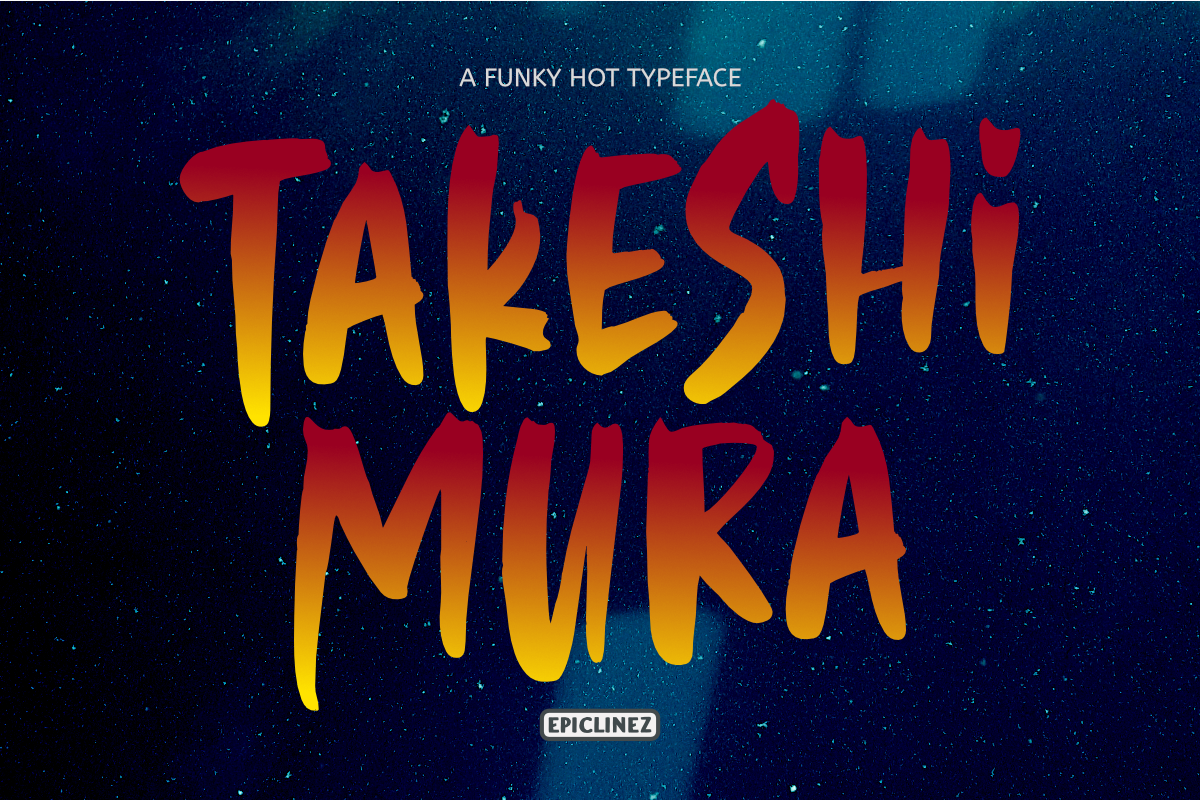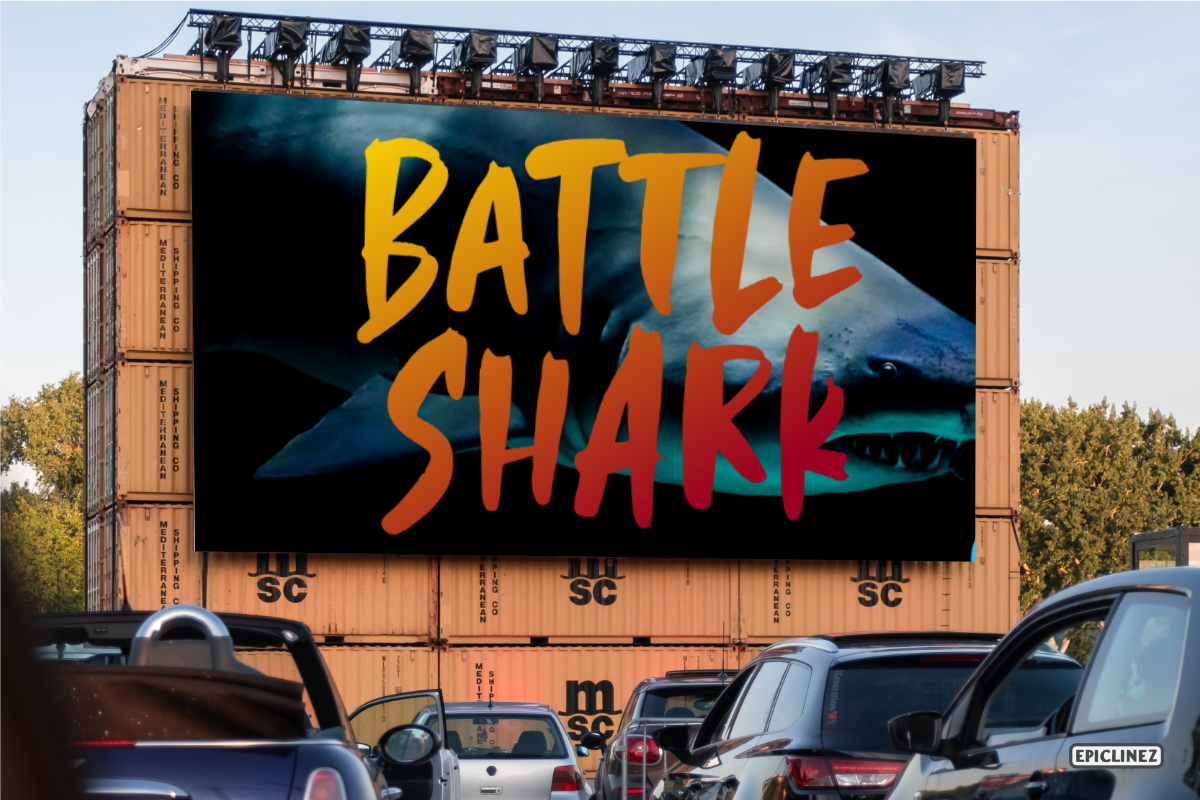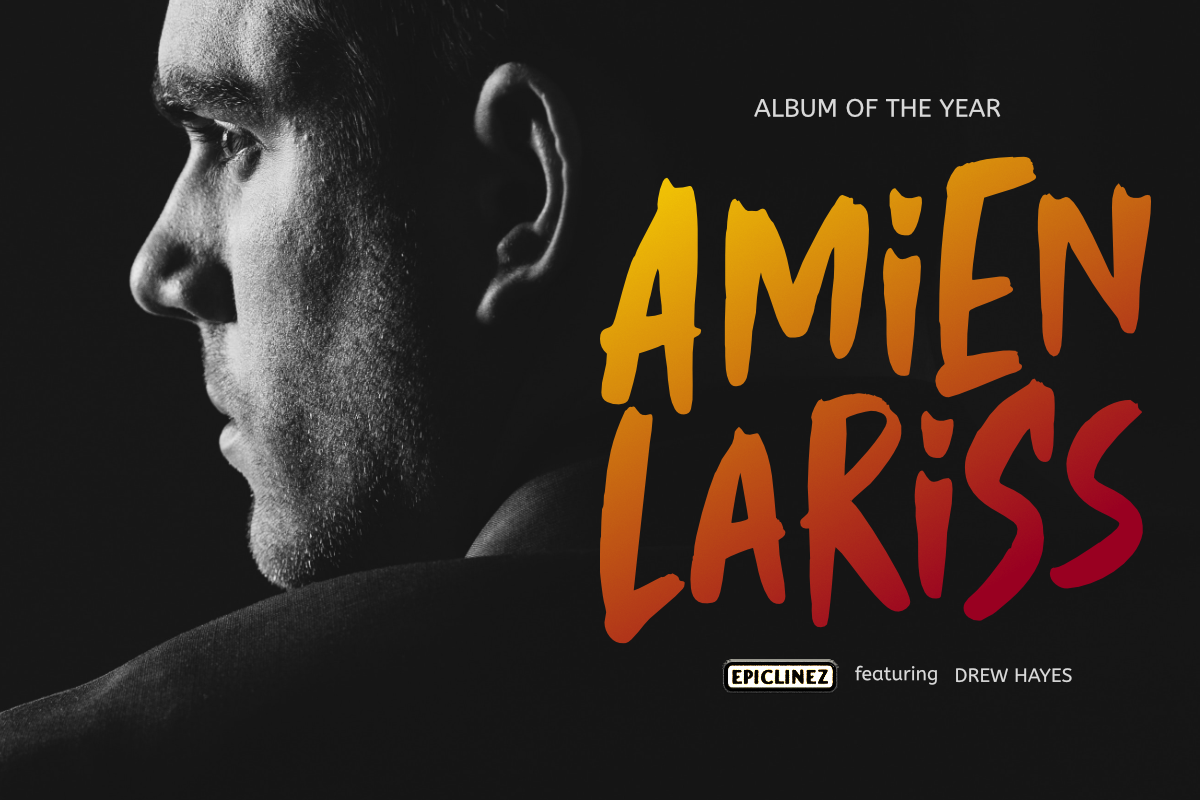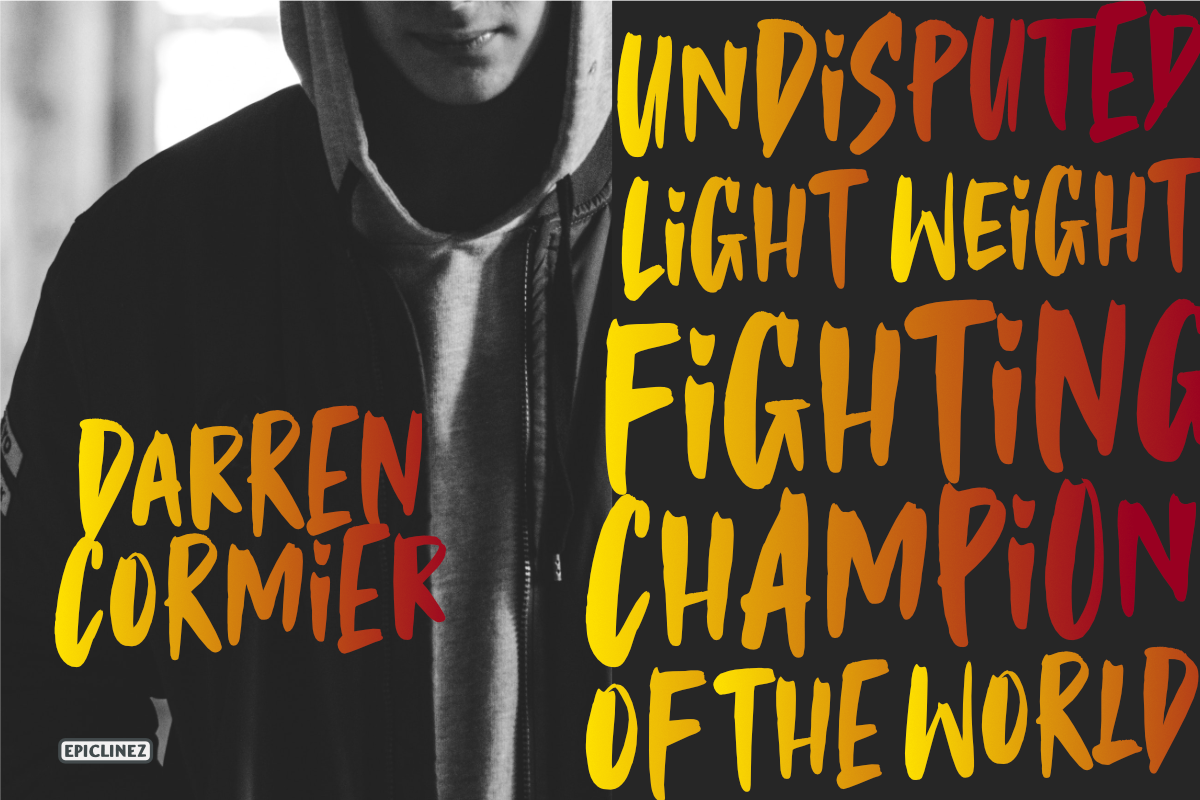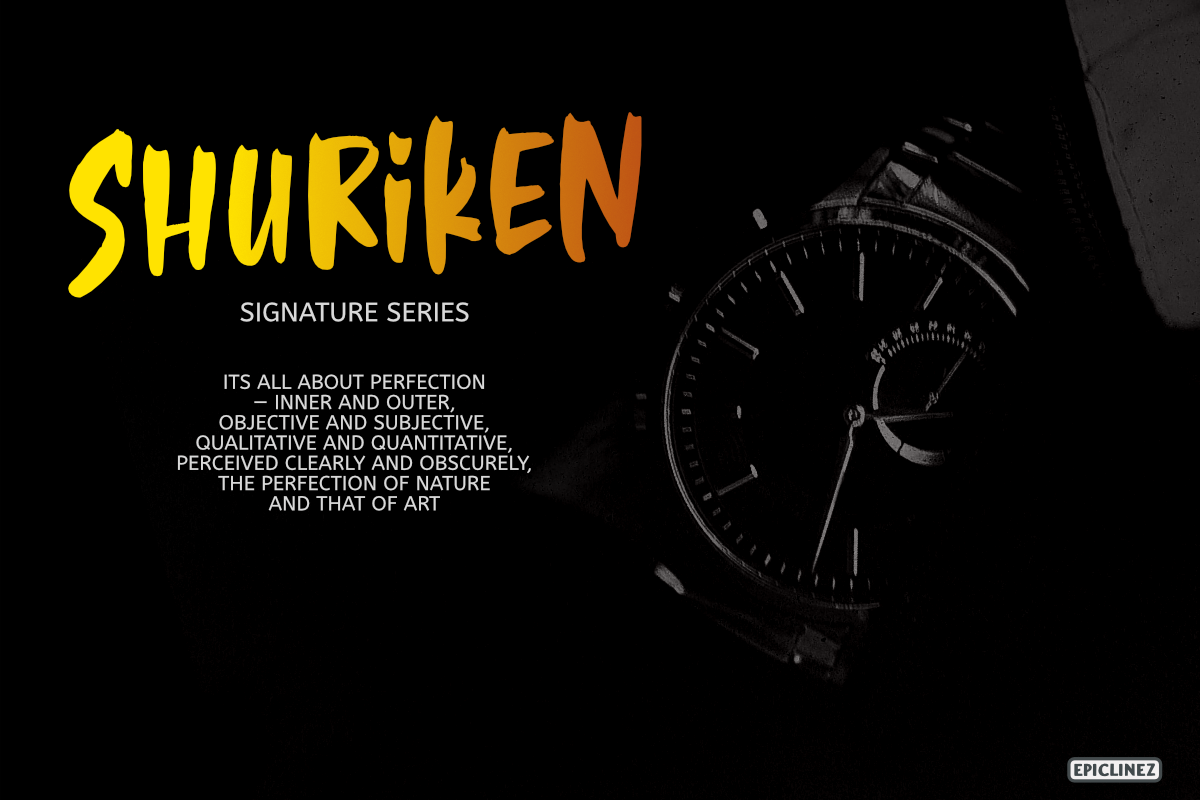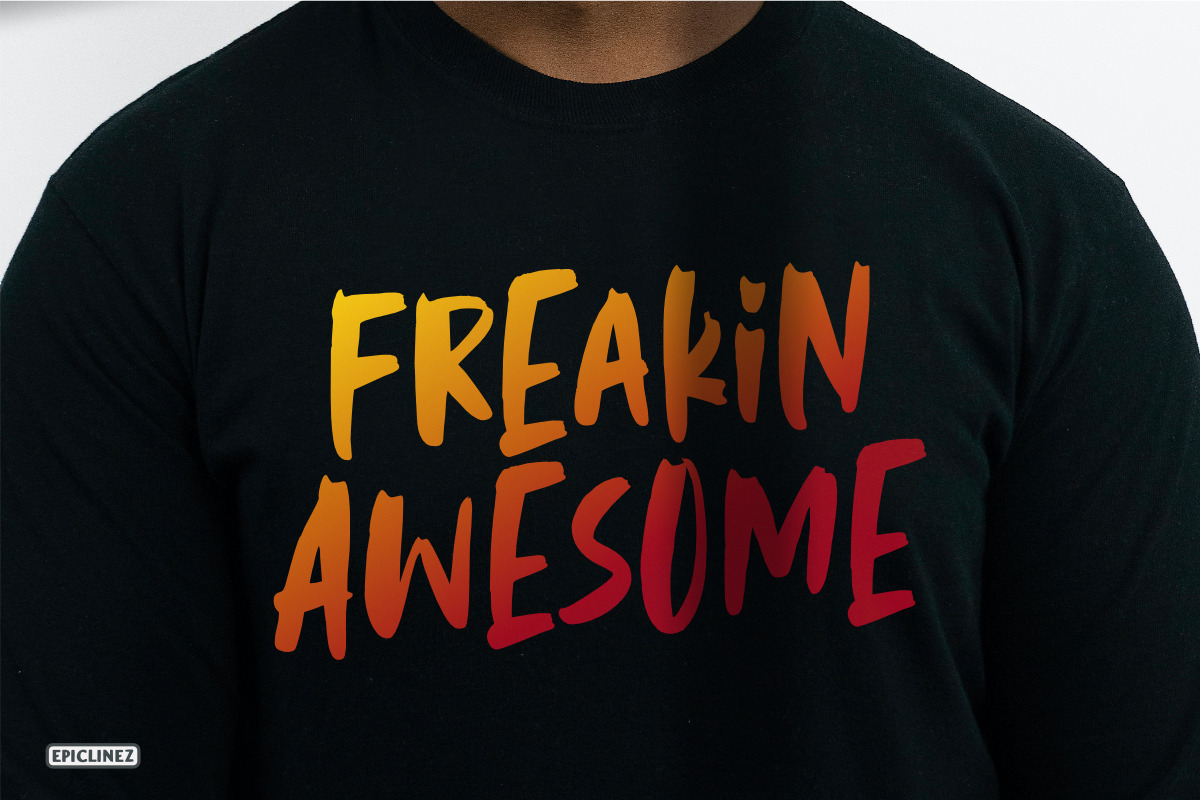
Takeshimura | Funky Typeface
Takeshimura is a funky brush font with a very strong character. Very cool if use for logos, headlines, brandings, posters, apparel, etc.